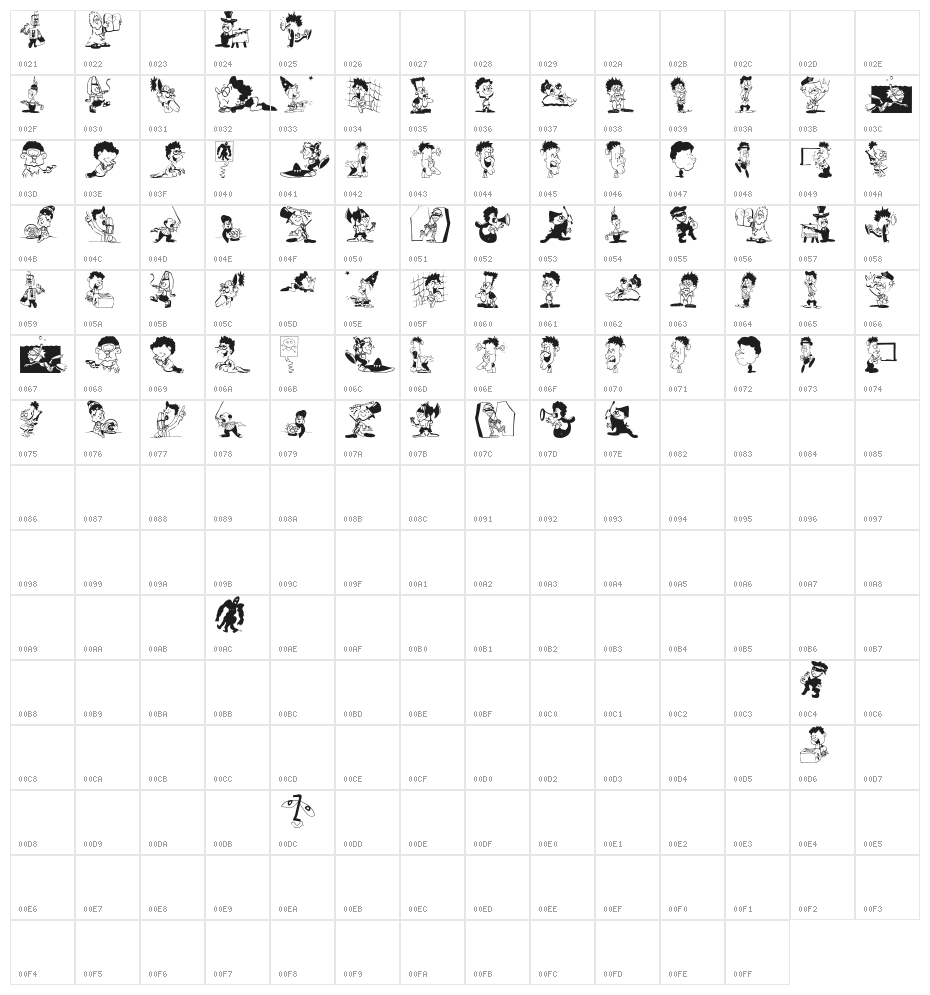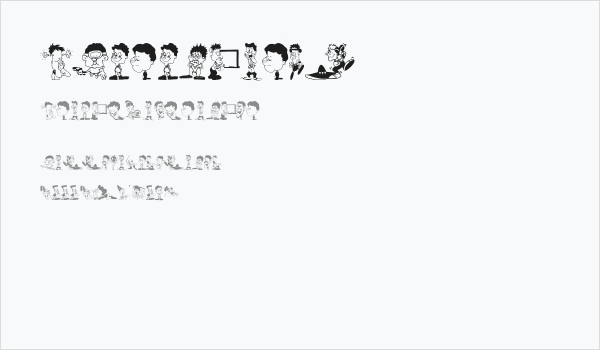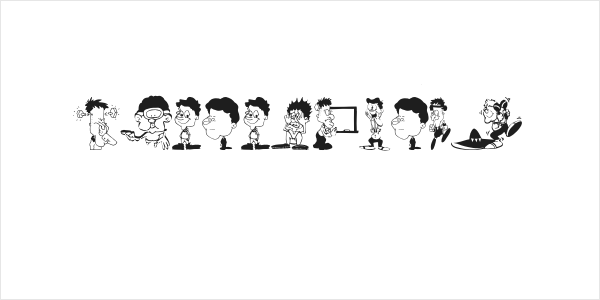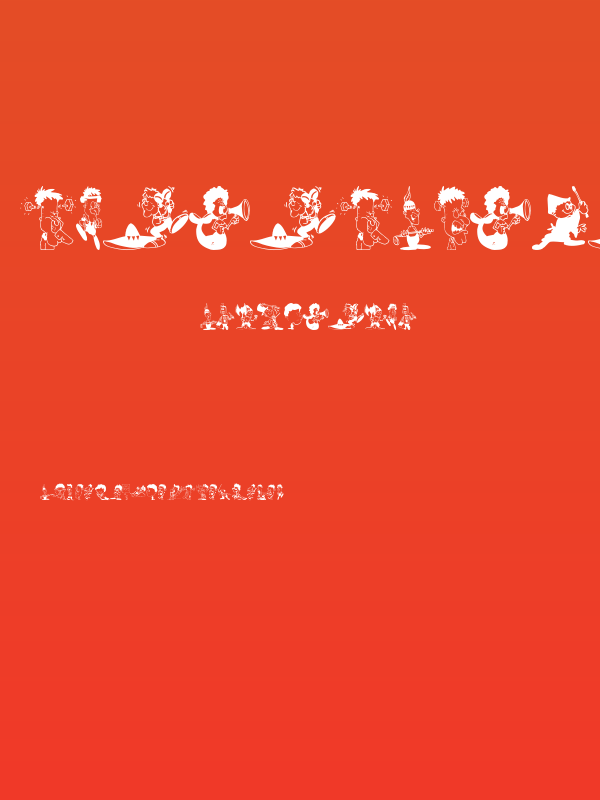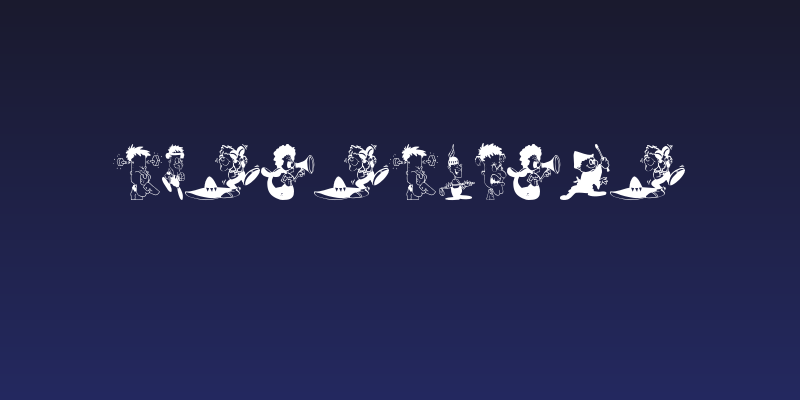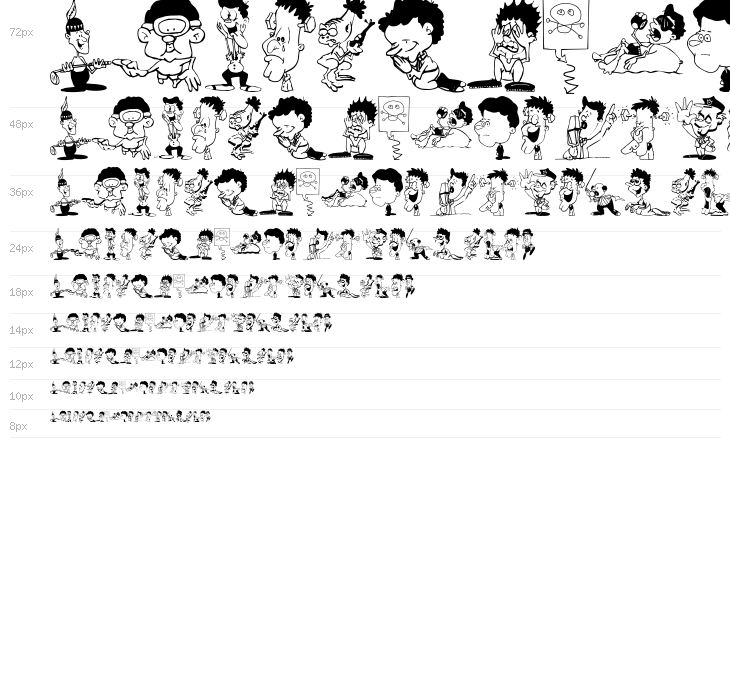
CharactersA Font
A highly decorative and playful font composed entirely of cartoon-style character illustrations, each letter and symbol represented by a unique comic drawing with exaggerated expressions and whimsical poses.
| Overall Style | Decorative, Playful, Whimsical |
| Use Case | Logos, Headlines, Posters, Themed events |
| Proposed Projects | ChildrenΓ’β¬β’s books, comic strips, party invitations, playful branding, educational materials. |